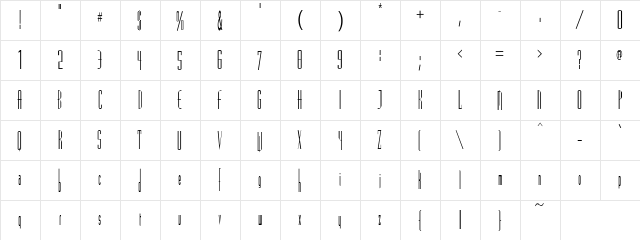
Madrid2Plain Regular
Design Context for Madrid2Plain Typeface
Madrid2Plain offers clean, dependable letterforms without strong stylistic allegiance, making it a practical choice for designers who need flexibility.